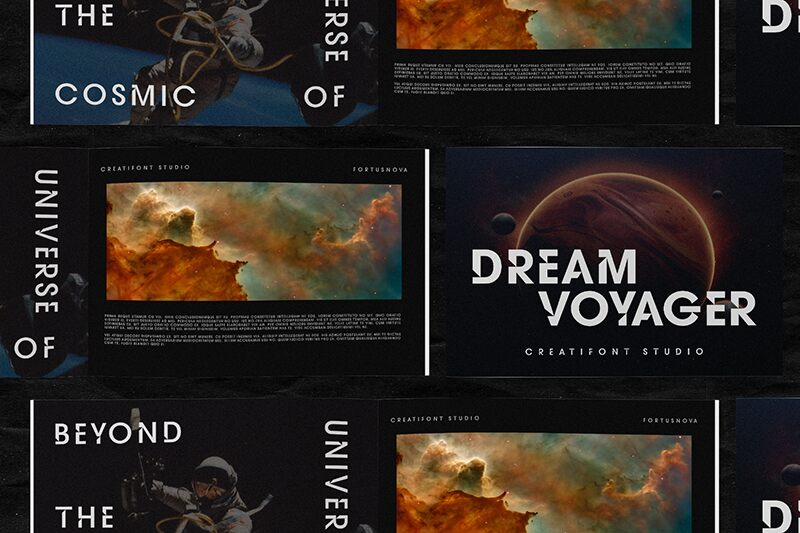
CF Fortusnova Demo Regular
CF Fortusnova font by Creatifont Studios is a modern sans serif characterized by its minimalistic approach and clean lines. Geometric influences in the design make for a versatile typeface that’s easy to read. It’s the perfect free font to have ready in your toolkit at your fingertips whenever you need it.
Use CF Fortusnova for websites, mobile UI apps, business cards, brochures, promotional materials, magazines, book covers, social media posts or even logos!